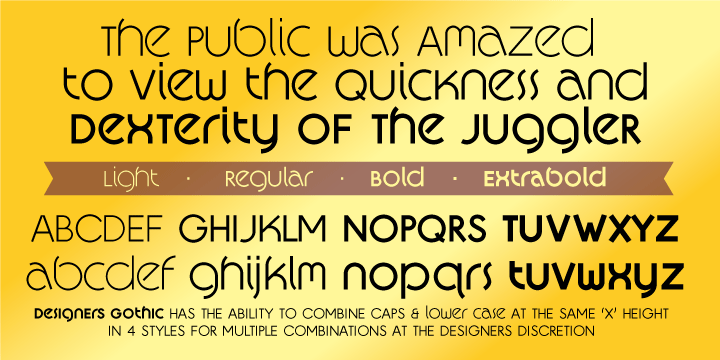
• Designers Gothic
Occasionally a designer needs the combination of caps and lower case glyphs for a particular purpose, visually or otherwise. Designer’s Gothic was designed with the Caps equal to the x height.
Usage recommendations: Posters, titles, book covers, greeting cards, signage, packaging, invitations, magazine articles, advertising and logos.